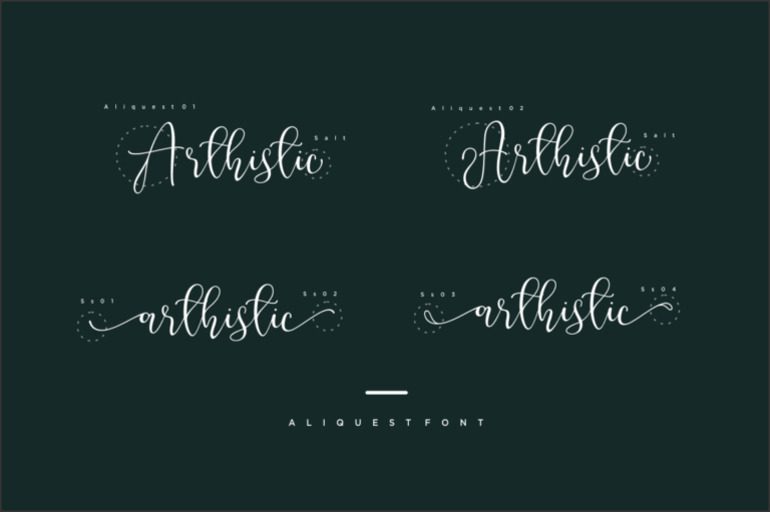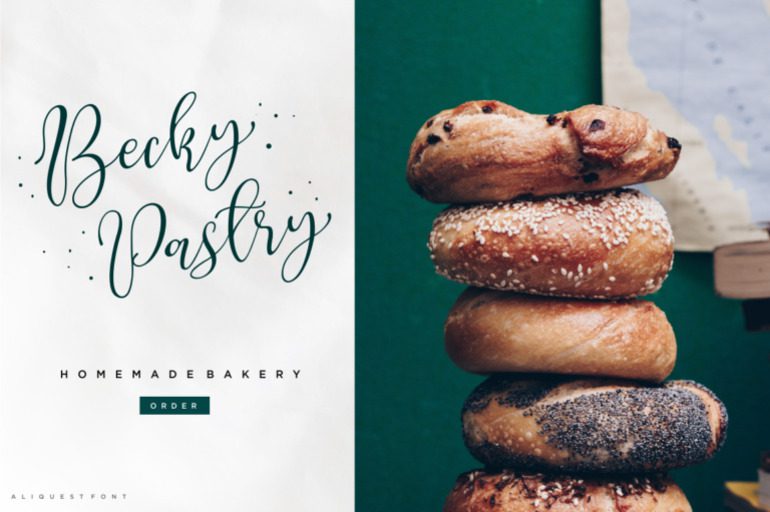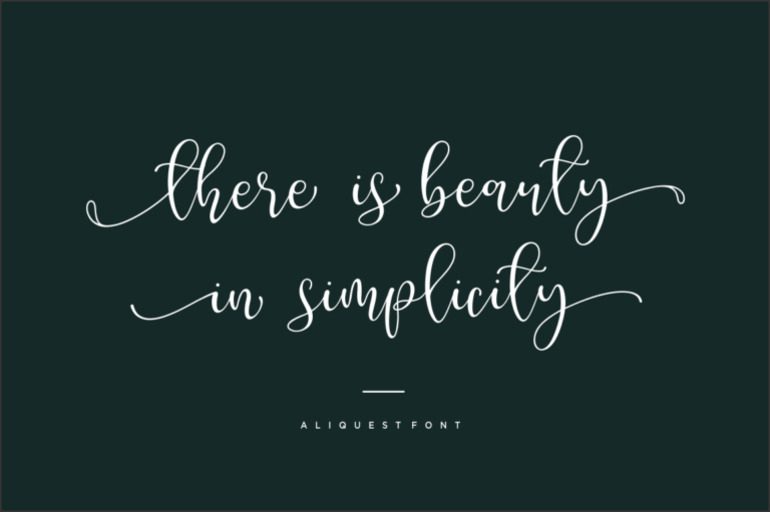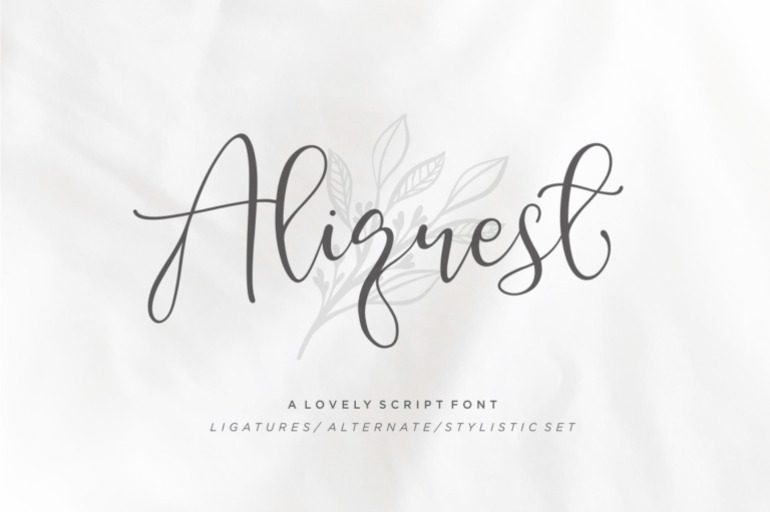
Aliquest Font
Aliquest Font is a modern and versatile calligraphy font with a clean and minimalist aesthetic. Its geometric design and balanced proportions make it ideal for a wide range of projects, from branding and advertising to website design and print materials. Perfect for creating a contemporary and professional look.